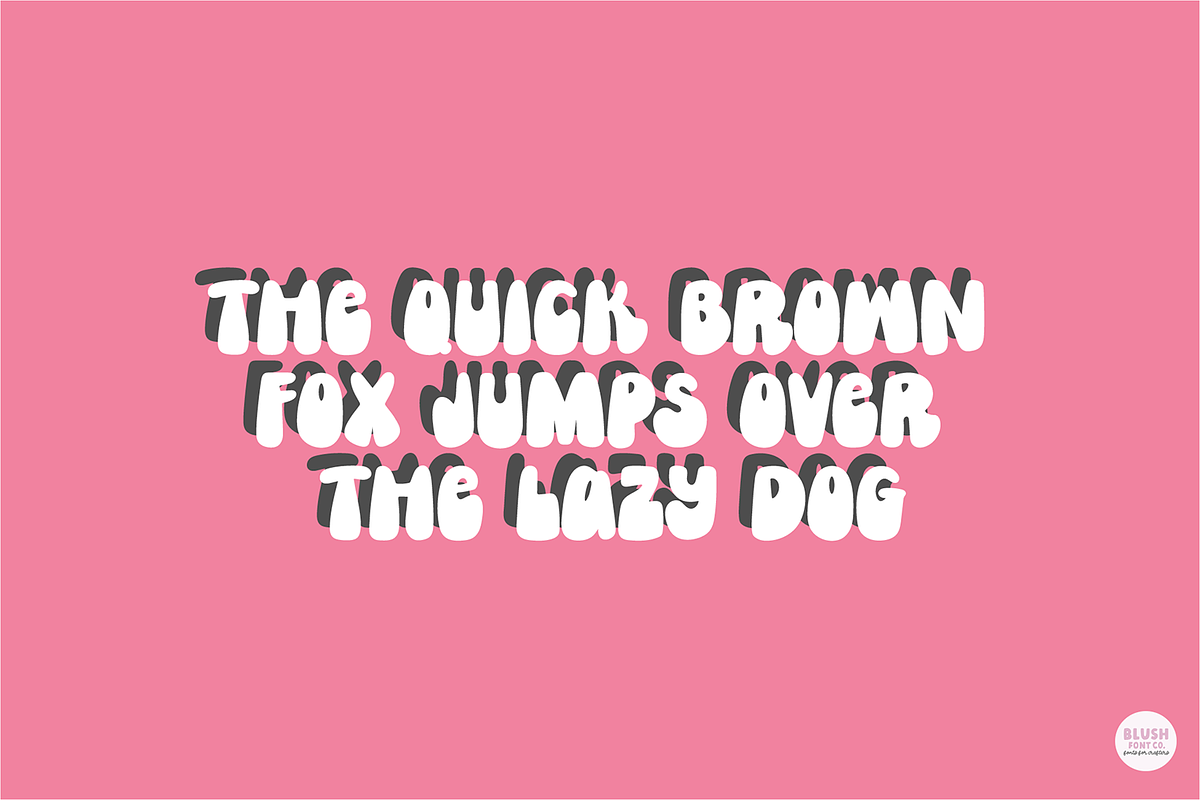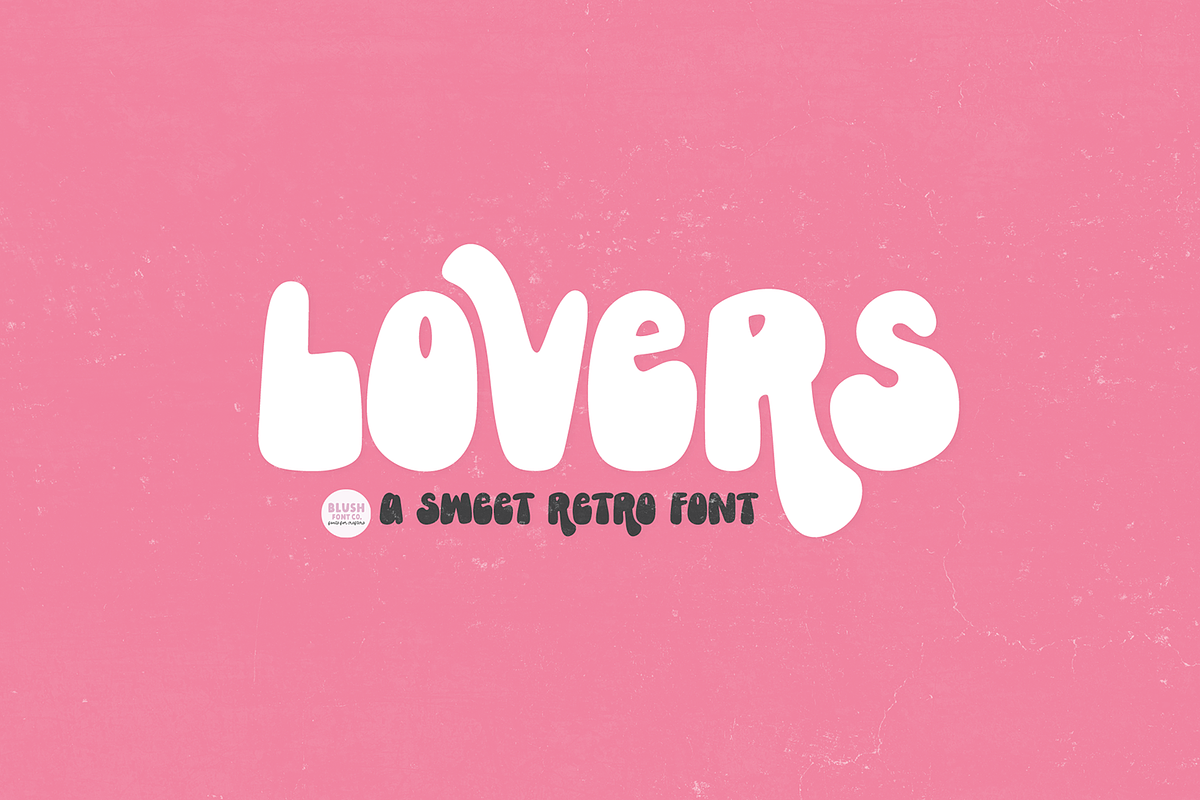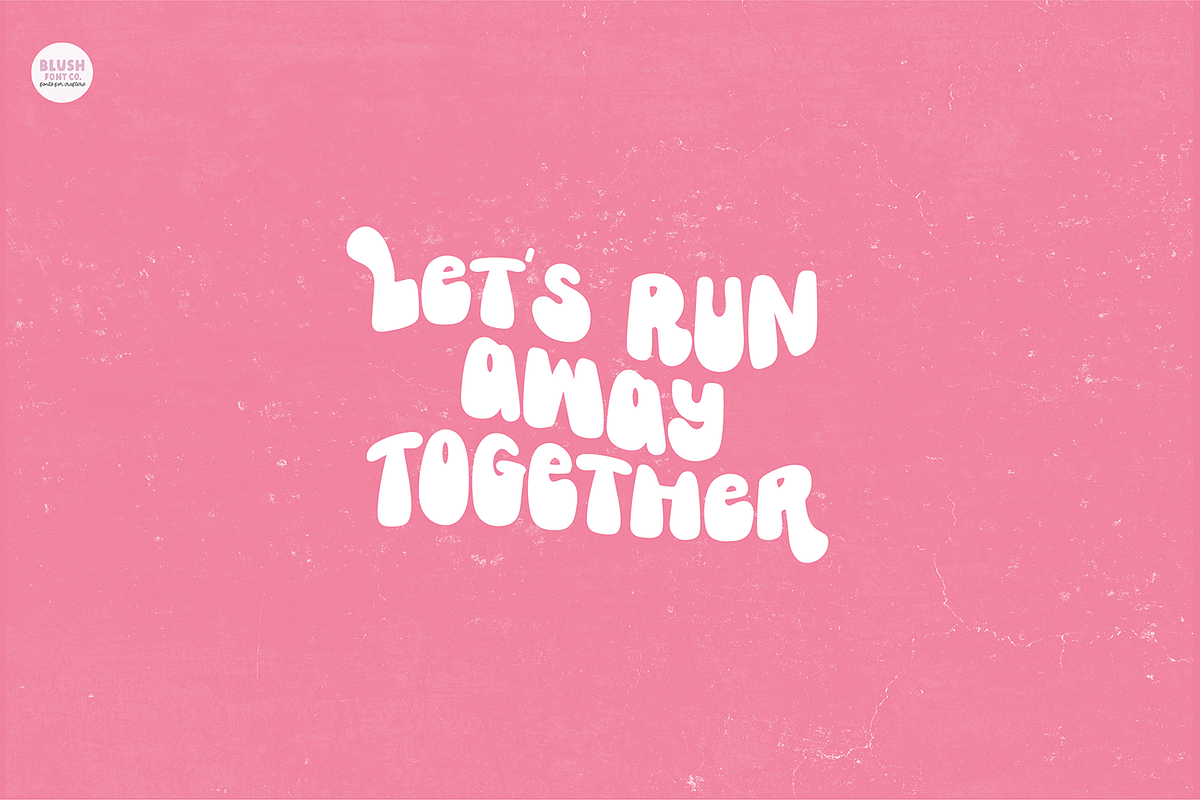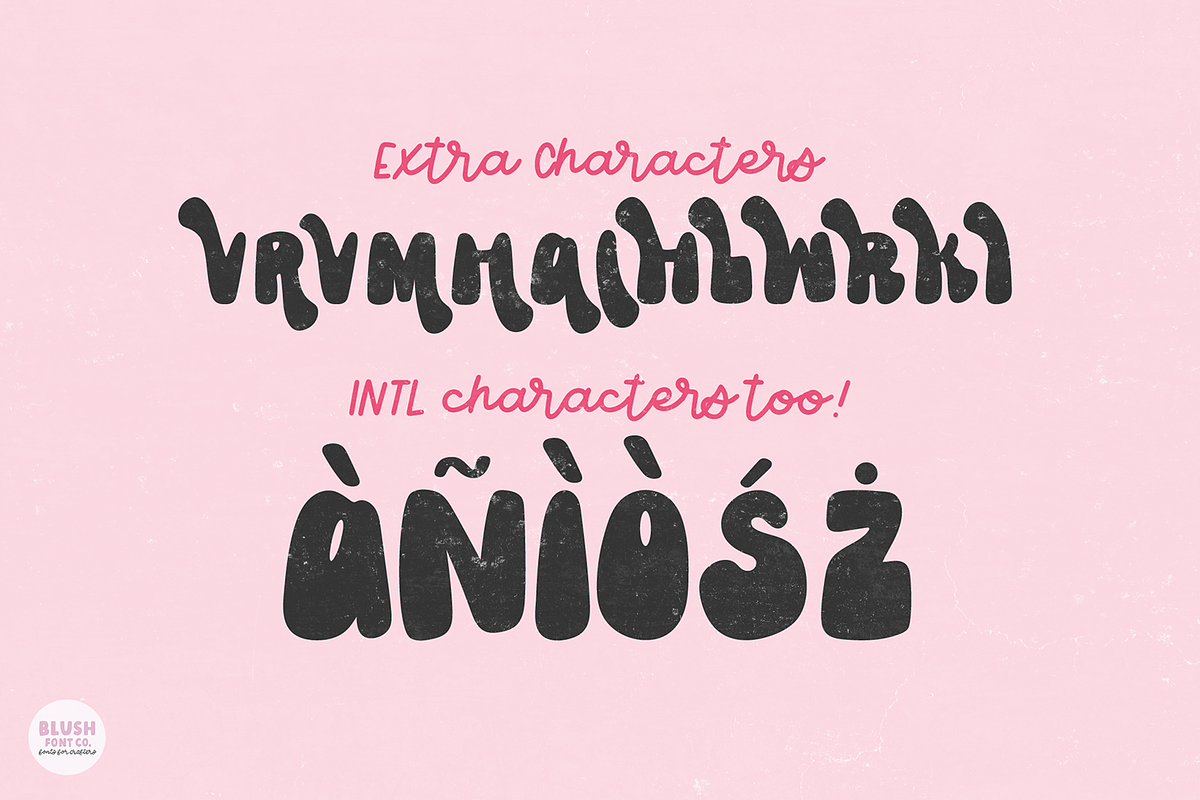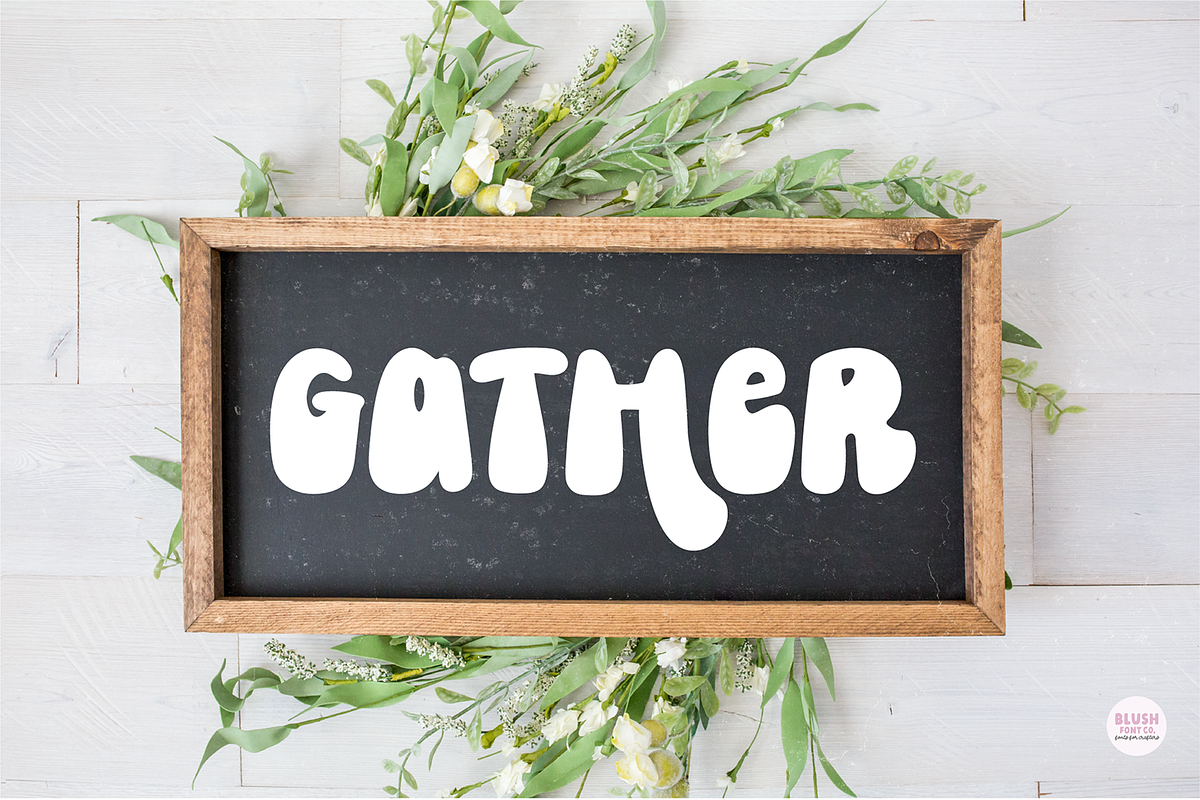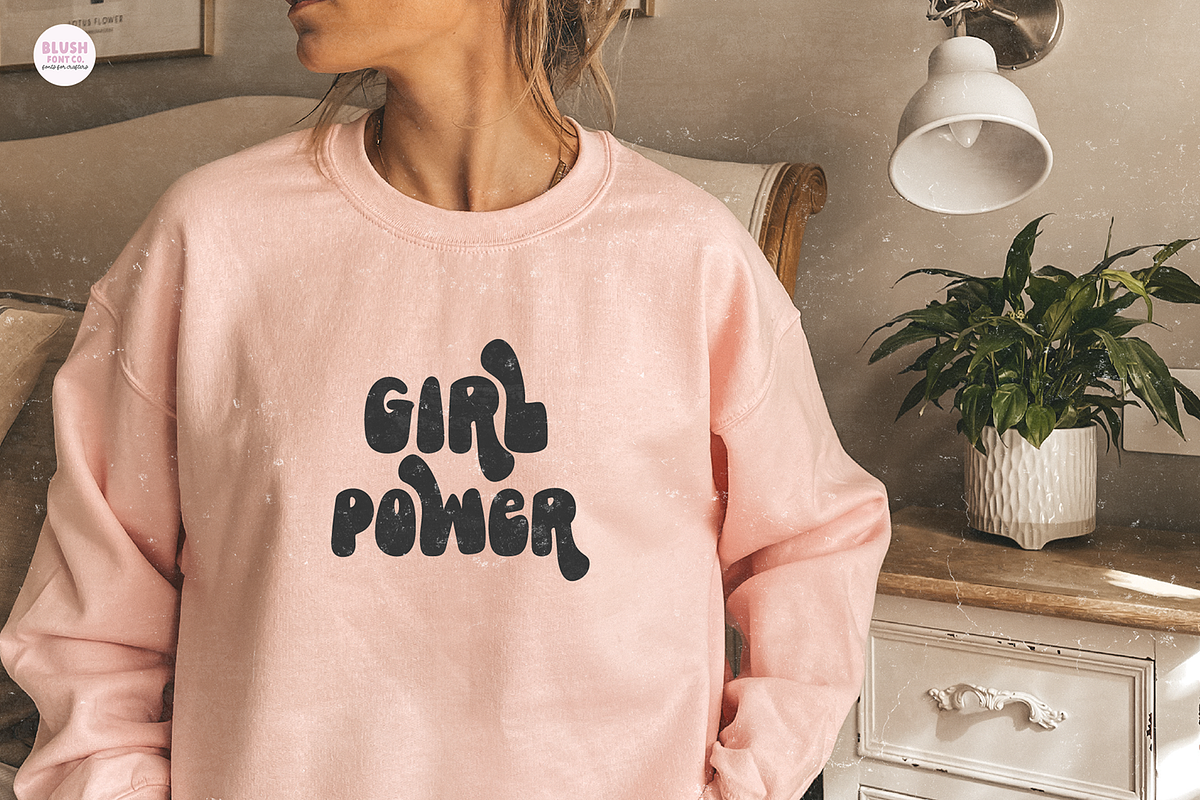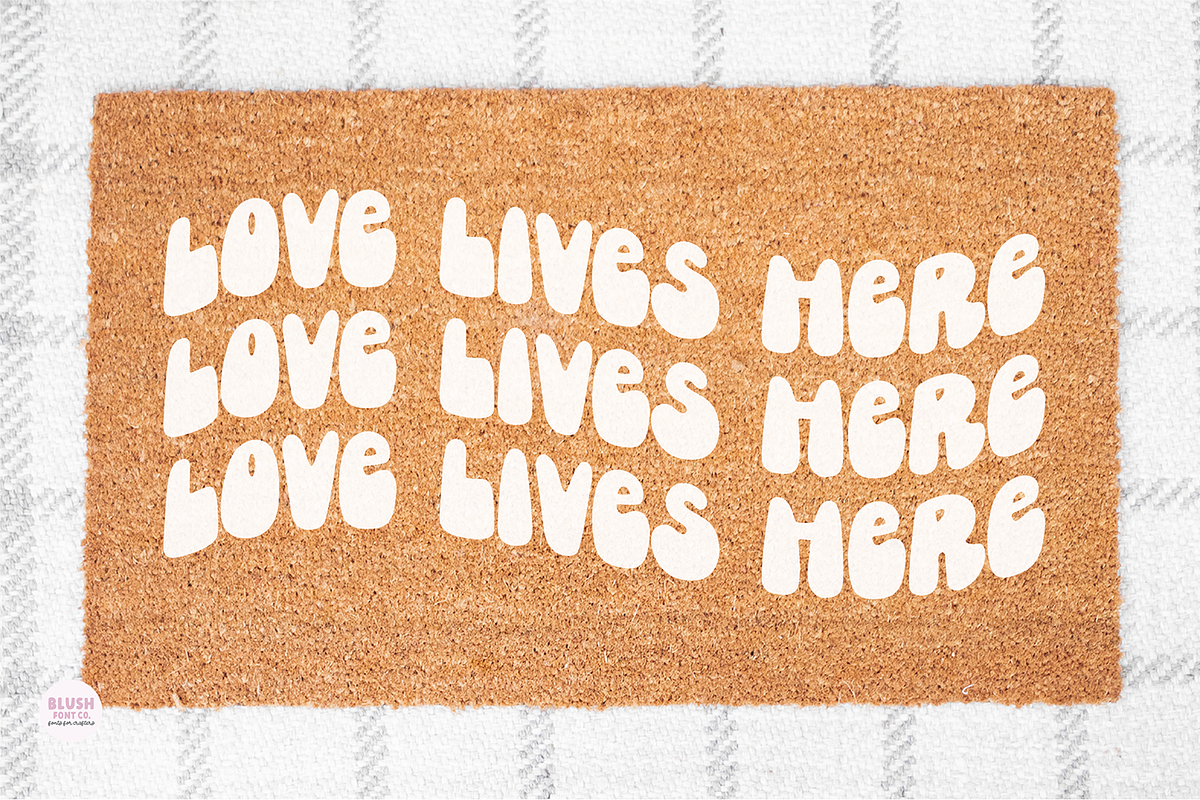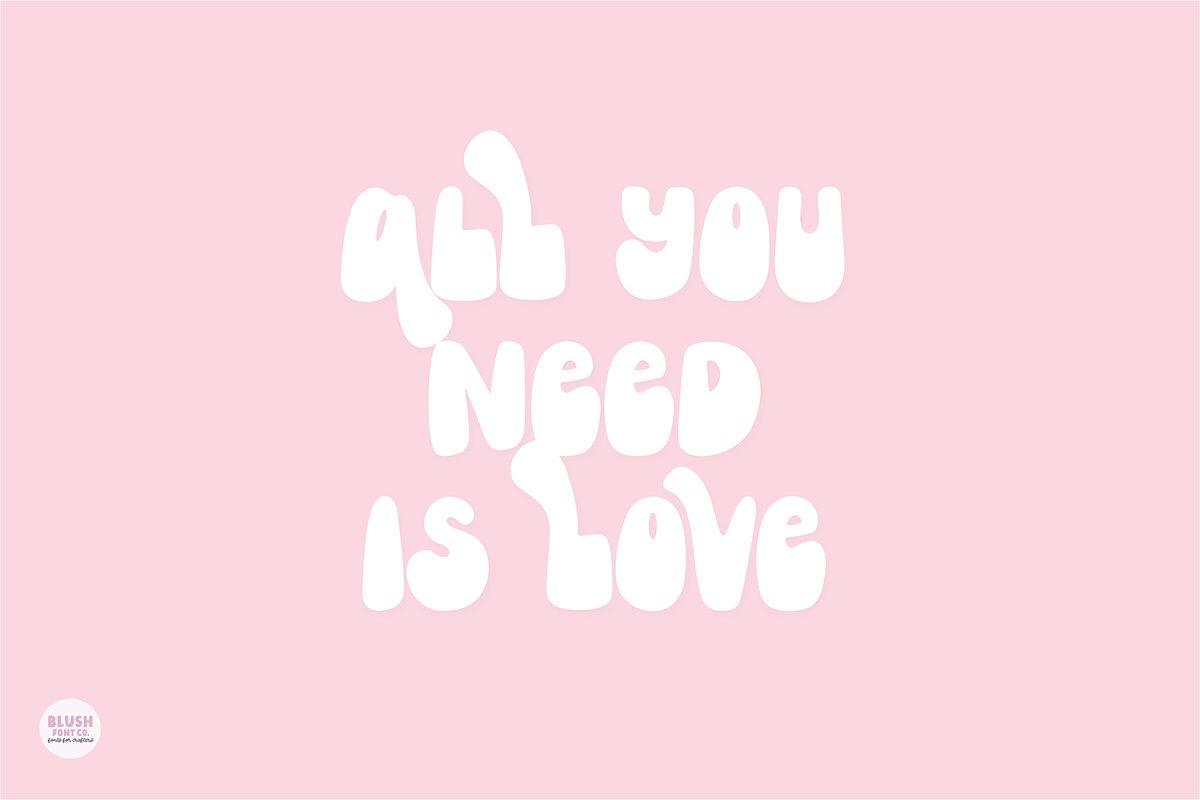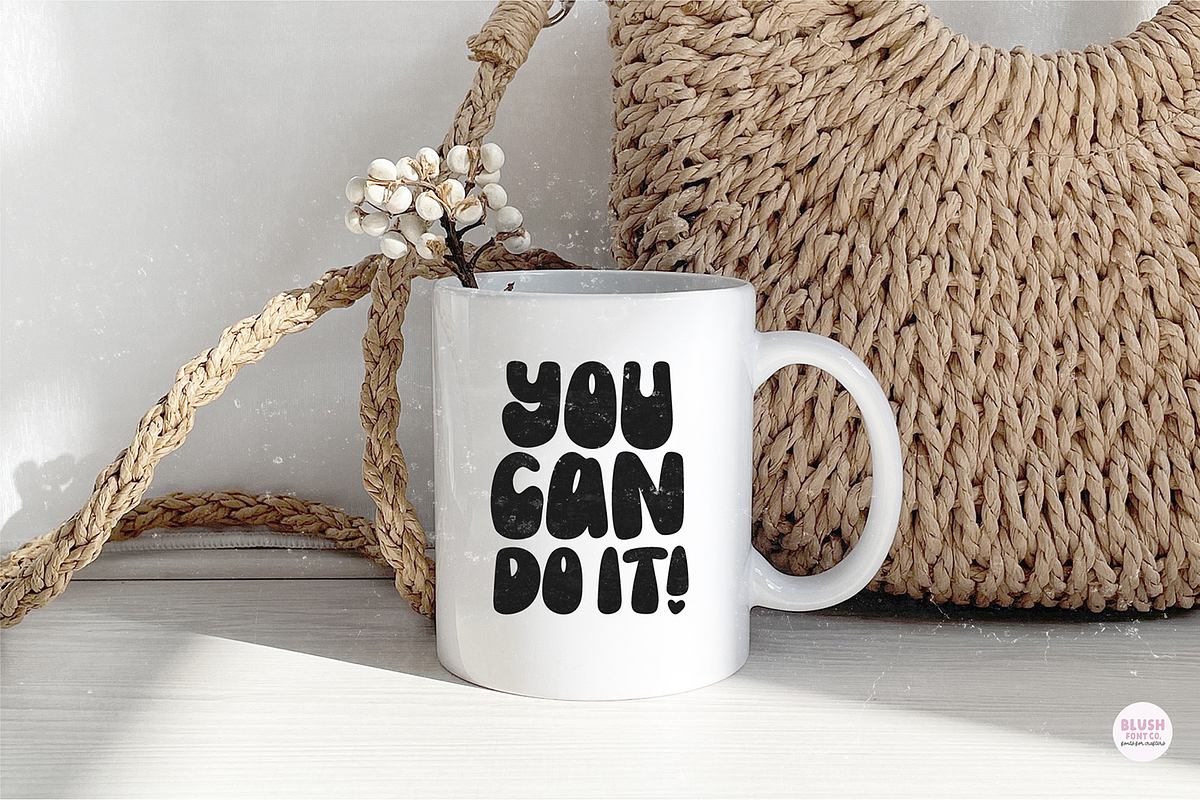
LOVERS an Adorable Retro Font
"Lovers" an adorable retro font
Lovers is a stylish boho font that is perfect for social media or crafty projects. Use it for branding, procreate, crafts for decor, invitations, and more! This font includes all caps glyphs, numbers, basic punctuation marks, intl characters (including Polish), and stylish extra characters.